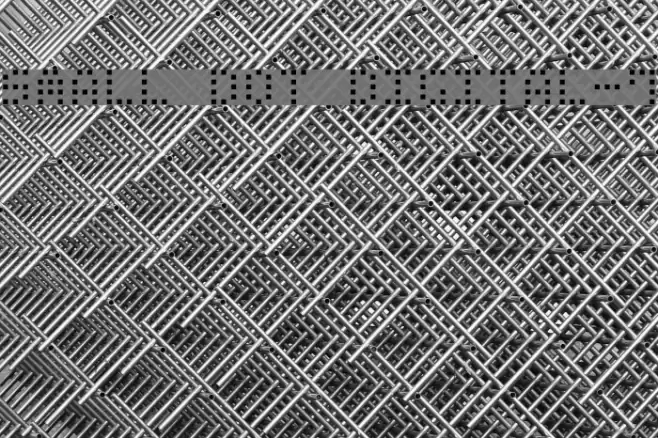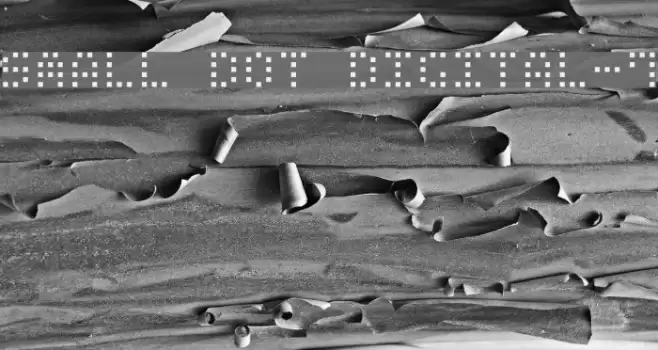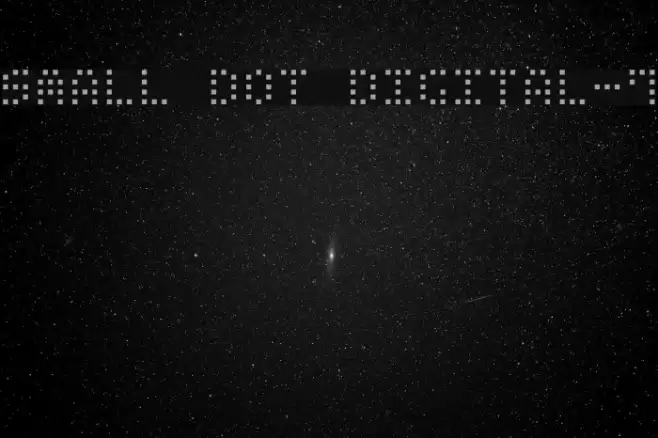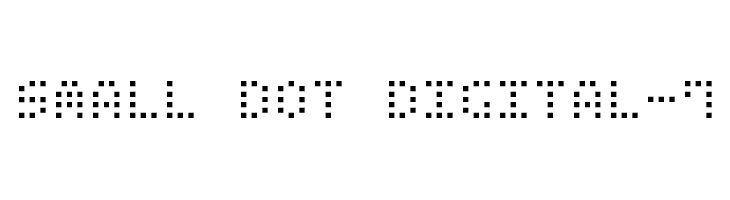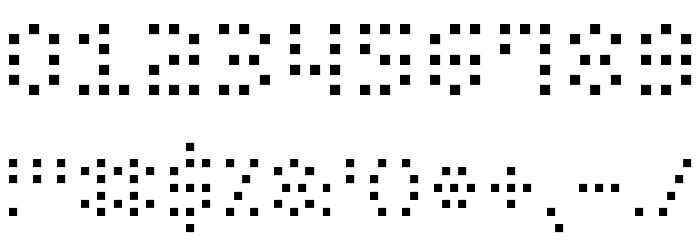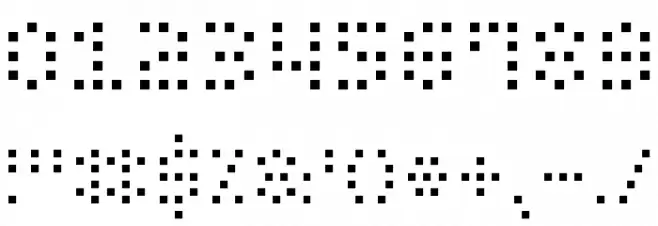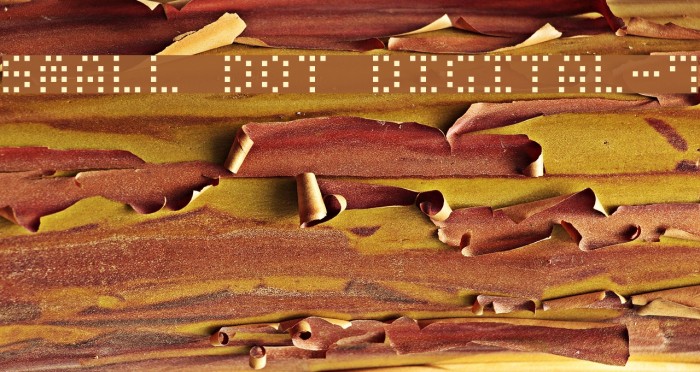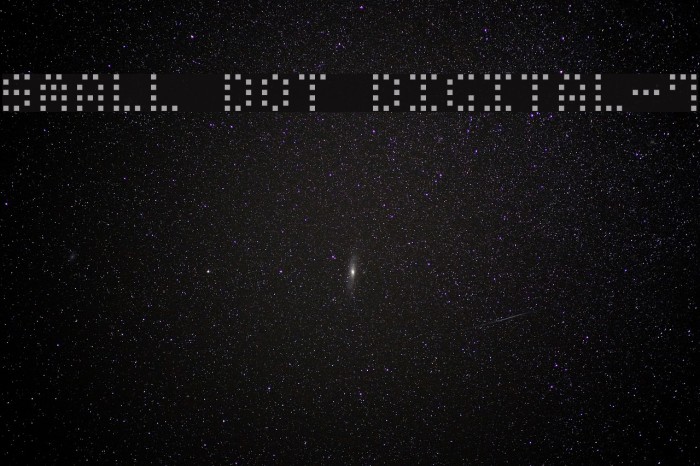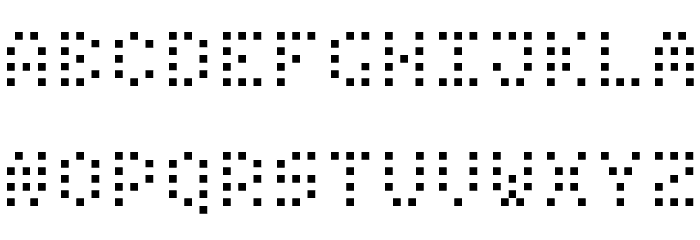
Small Dot Digital-7 Font
Small Dot Digital-7 Description
This font features a unique digital style composed entirely of small dots arranged to form each character. The design is reminiscent of old digital displays, providing a retro and technological feel. Each letter and number is constructed with precision, maintaining uniformity across the set. The characters are easily distinguishable despite the dot matrix style, making it suitable for digital-themed projects. The font includes uppercase and lowercase letters, numbers, and a selection of special characters, all adhering to the dot pattern. Its distinct appearance makes it ideal for creative and tech-oriented designs.
A digital dot matrix font with a retro, tech-inspired style from Futuristic fonts.
- Proposed Projects: Ideal for digital displays, tech-themed posters, retro video games, and creative design projects.
- Overall Style: Retro, Digital
- Use Case: Headlines, Logos, Digital displays